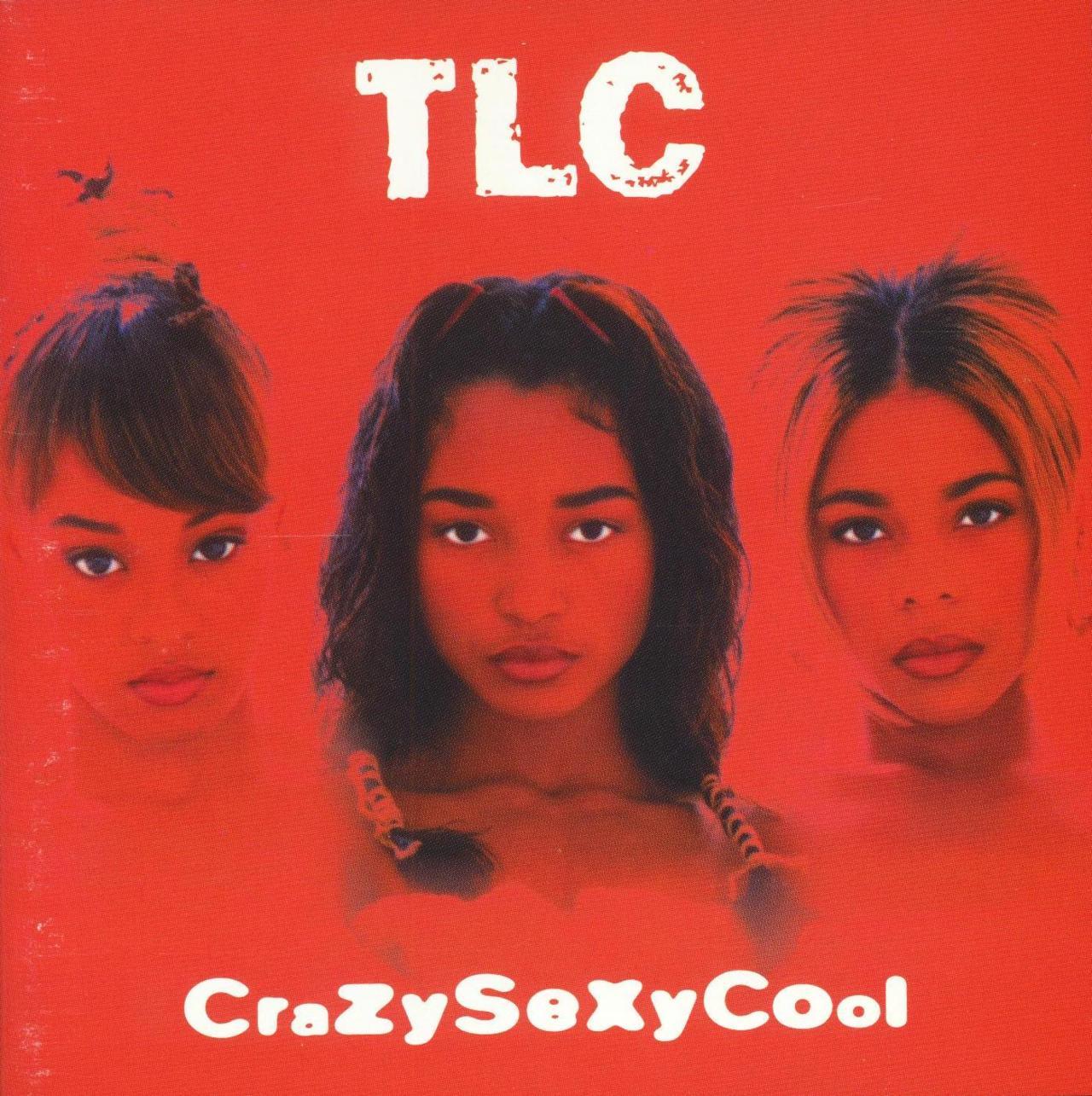
CrazySexyCool Font
Fonts in UseCrazySexyCool is the second studio album by American girl group TLC, released in 1994. It features hit singles such as "Creep," "Waterfalls," and "Red Light Special," and is considered a landmark album in the development of contemporary R&B music.
The album title's font bears a striking resemblance to Neville Brody's FF Blur Bold typeface, while the group name is displayed using a distressed font called Frankie, which is modeled after Morris Fuller Benton's Franklin Gothic typeface.